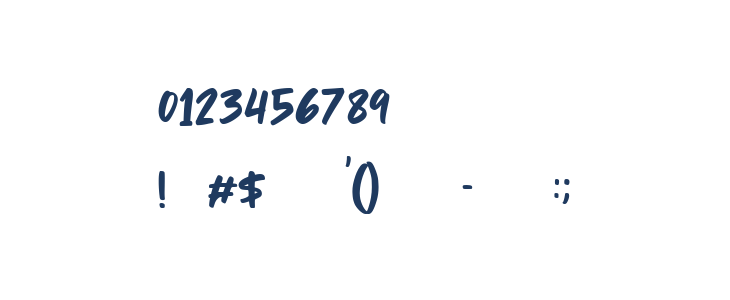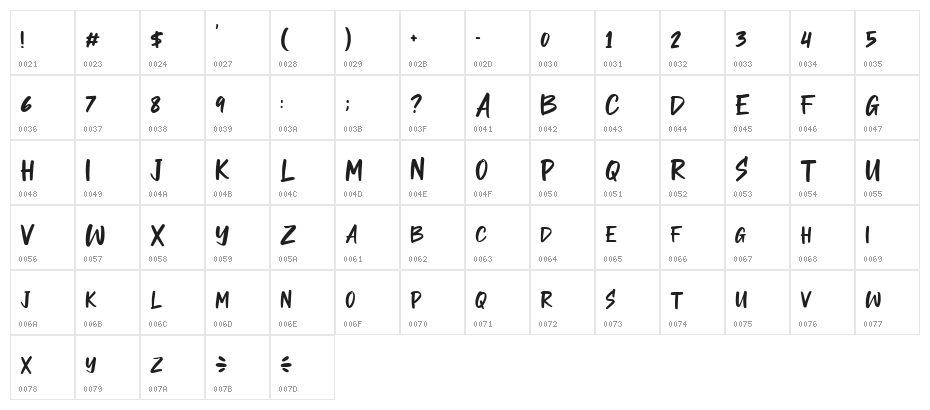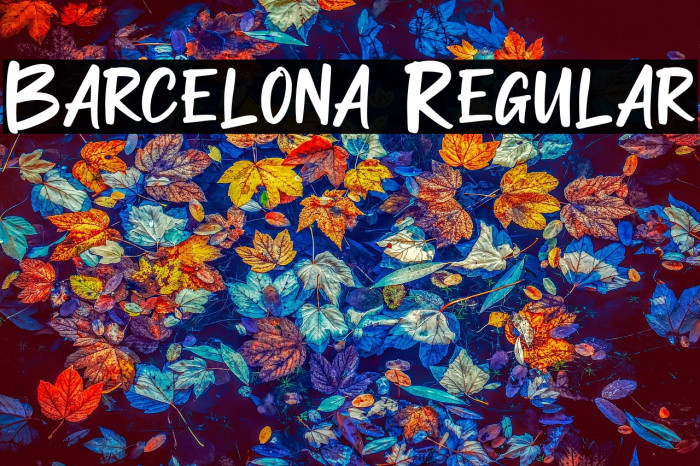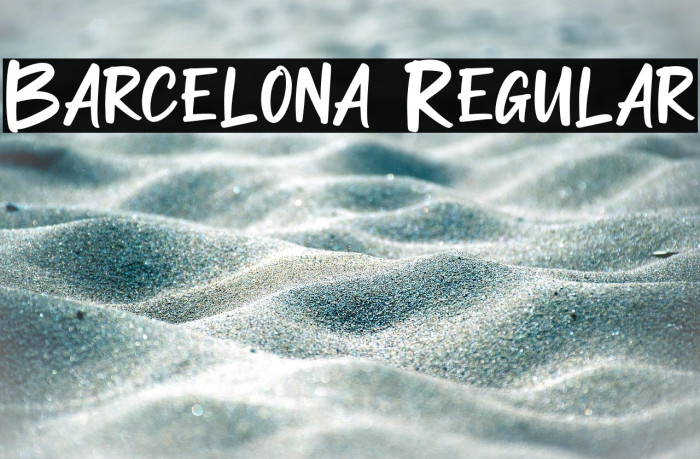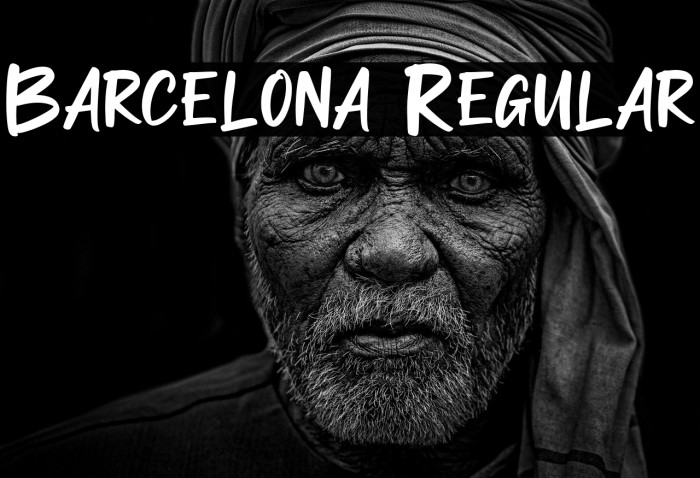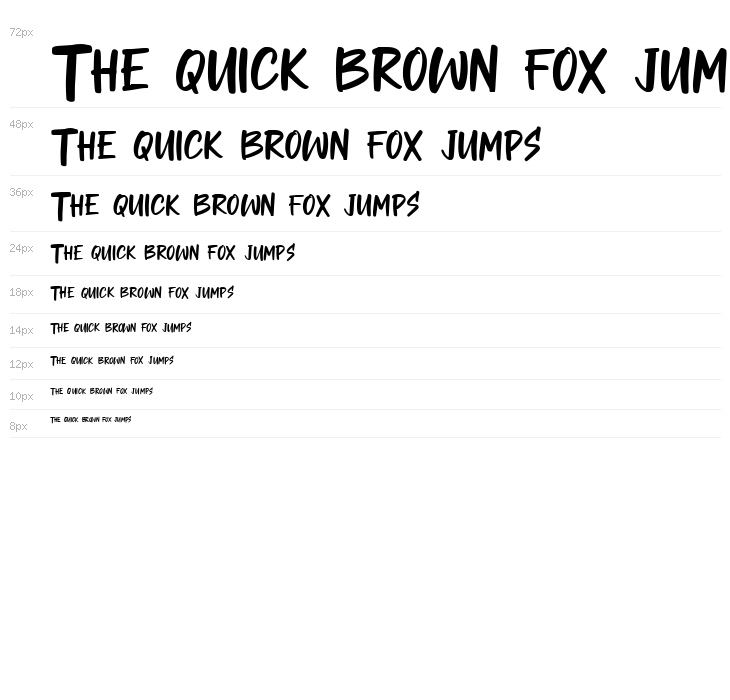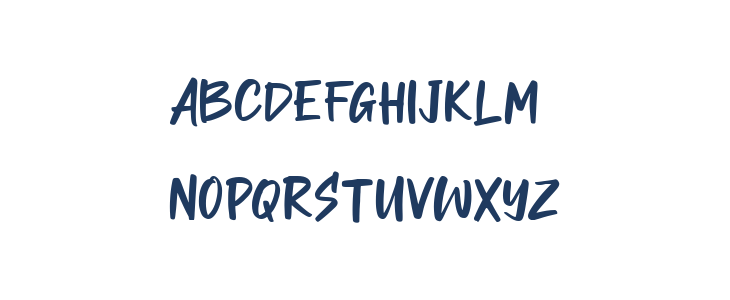
Barcelona Regular Font
Barcelona Regular Description
This font exhibits a bold and energetic style with a handwritten appearance, characterized by its dynamic and slightly irregular strokes. The uppercase letters are bold and assertive, while the lowercase letters maintain a consistent flow, adding a casual yet impactful touch. The numerals are clear and legible, complementing the overall style. Special characters are integrated seamlessly, maintaining the font's cohesive look. The font's playful and informal nature makes it suitable for projects that require a personal and approachable feel.
| Overall Style | Casual, Energetic |
| Proposed Projects | Ideal for branding, posters, social media graphics, and any project seeking a lively and personal touch. |